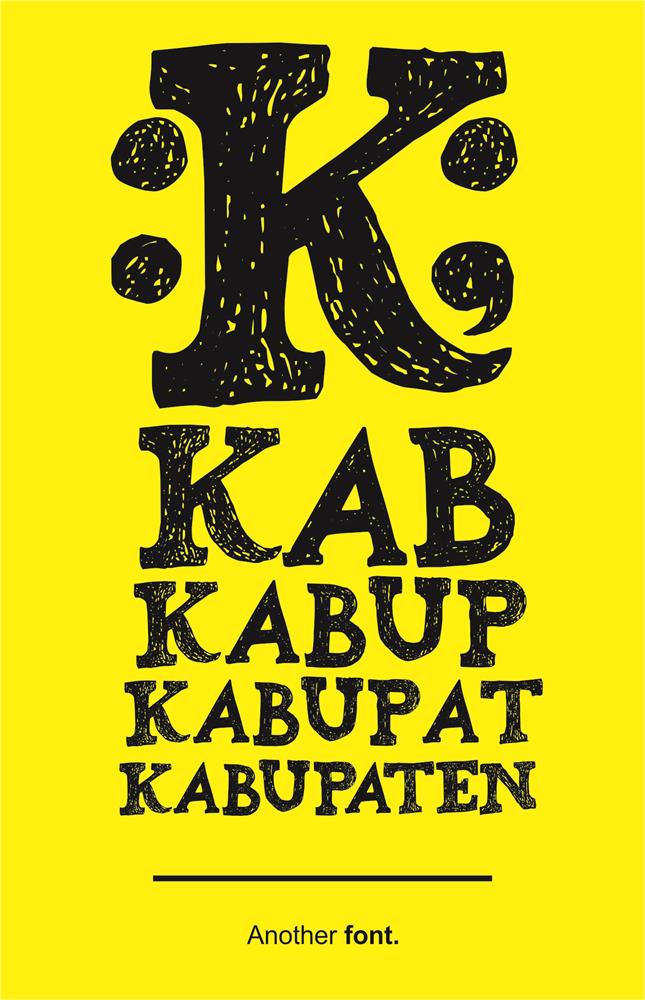
Free Kabupaten Font
Download and enjoy this free kabupaten font. Cool typeface to showcase your designs in a modern way. Download this free font from the original source of Font Space. Amaze your fellow designers and create stunning designs with this beautiful font.